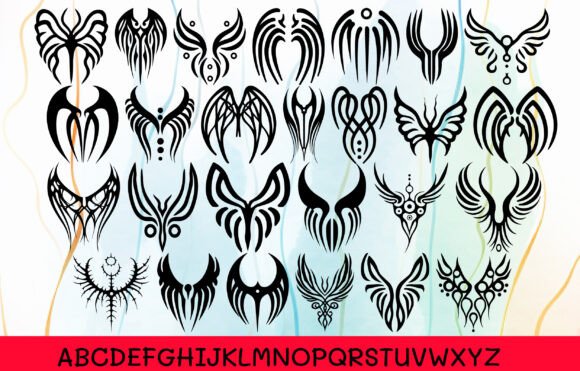
The Magic of Angel Wings Tribal Font: Unleashing Creativity
Have you ever been struck by inspiration while brainstorming ideas for a new project? The creative spark hits, and suddenly, your mind is flooded with possibilities. For designers, this moment is a gift, but it can also be a daunting task to bring those ideas to life. This is where the right tools come in – like the Angel Wings Tribal Font, a unique collection of wing-inspired designs that can add a touch of celestial magic to your work.
Comprising 26 distinctive wing designs, each corresponding to a letter from A to Z, this font is perfect for crafting, digital art, tattoos, and more. The Angel Wings Tribal Font is not just a pretty face; it’s a valuable asset for designers looking to add an artistic and tribal touch to their projects. With this font, the possibilities are endless, and your creativity can soar to new heights.
- Font Family: A unique, hand-drawn tribal font with a mystical and exotic feel.
- Unique Characteristics: The font features intricate, hand-drawn designs, including tribal patterns and motifs, adding a touch of cultural authenticity to designs.
Designer Review: Angel Wings Tribal Font
Overall, I’m really enjoying working with the Angel Wings Tribal Font. The unique blend of tribal patterns and delicate wing elements creates a captivating visual experience. ✨ The font’s eclectic feel is perfect for projects that require a touch of bohemian flair or a sense of mysticism.
Here are some of the font’s strengths:
- Its versatility: The Angel Wings Tribal Font can be used for a wide range of projects, from logos and branding to digital art and posters.
- Its creative potential: The font’s intricate design elements offer endless opportunities for customization and experimentation.
- Its uniqueness: The font’s blend of tribal patterns and delicate wing elements sets it apart from more traditional fonts.
- Lack of legibility: At smaller font sizes, the intricate design elements can make the text difficult to read.
- Limited font weights: The font only comes in a few different weights, which may limit its use in certain design applications.
- Difficult to pair: The font’s unique style can be challenging to pair with other fonts, requiring careful consideration to achieve a cohesive design.
Overall, I’m impressed with the Angel Wings Tribal Font’s creativity and versatility. While it may have some limitations, it’s a great choice for designers looking to add a touch of mysticism and bohemian flair to their projects.
The Angel Wings Tribal Font is perfect for:
- Music festival or concert posters.
- Bohemian-inspired wedding invitations or decorations.
- Travel or adventure-themed social media graphics.
Alternatives to Angel Wings Tribal Font
Font 1: Pacifico
Pacifico is a beautiful, elegant script font that works well for designs that require a touch of sophistication and luxury. It’s perfect for wedding invitations, branding, and packaging. Compared to Angel Wings Tribal Font, Pacifico is more refined and less bold, making it suitable for more formal designs.
Font 2: Great Vibes
Great Vibes is a modern, elegant script font that’s ideal for designs that require a sense of movement and energy. It’s perfect for posters, flyers, and social media graphics. Compared to Angel Wings Tribal Font, Great Vibes is more fluid and dynamic, making it suitable for designs that need to convey a sense of excitement and adventure.